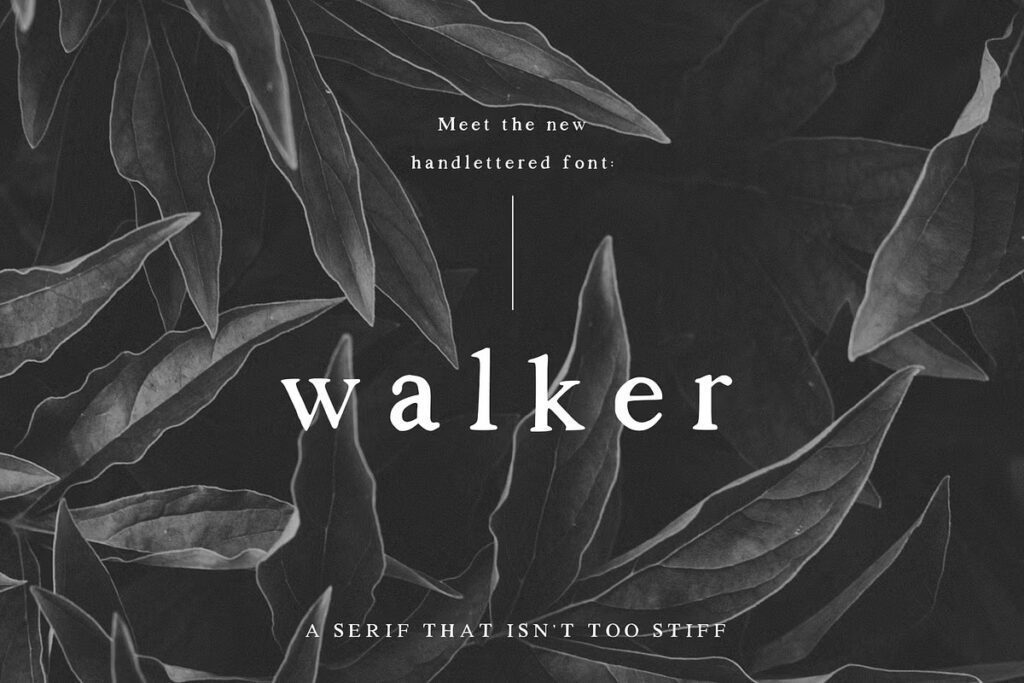
Introducing Walker – A Handlettered Serif Font for Elegant, Feminine Designs
If you’re looking for a hand-drawn serif font with a soft and feminine touch, Walker is the perfect choice. Available in Thin, Regular, and Bold variations, Walker adds a graceful yet creative flair to any design. Whether you’re designing logos, inspirational quotes, or social media posts, this handlettered serif font provides a unique balance of structure and style. With added French and Spanish accents, it’s also ideal for multilingual projects.
Each style in the Walker font family has its own charm, making it a versatile choice for any creative project. Ready to bring elegance to your next design?